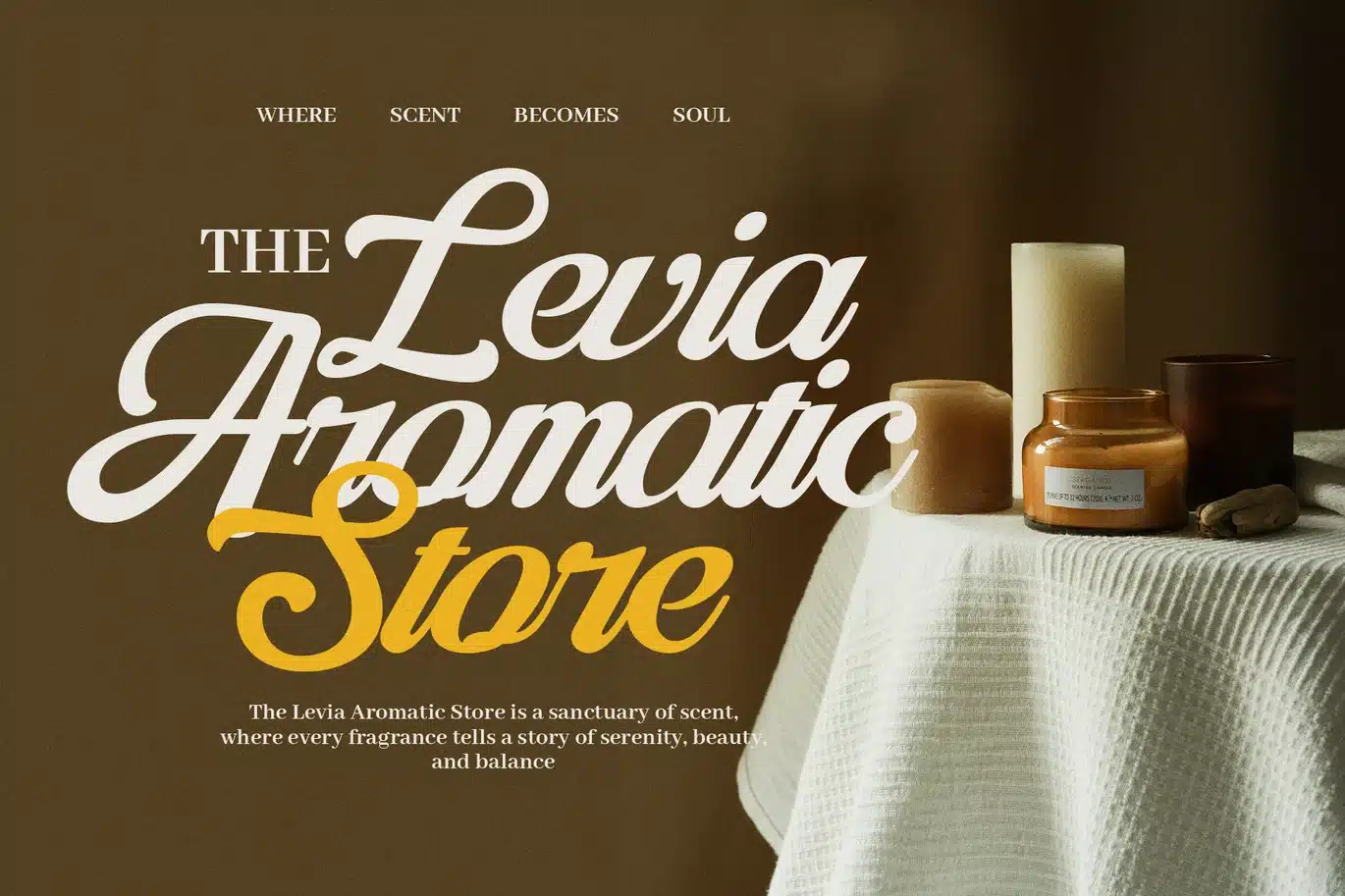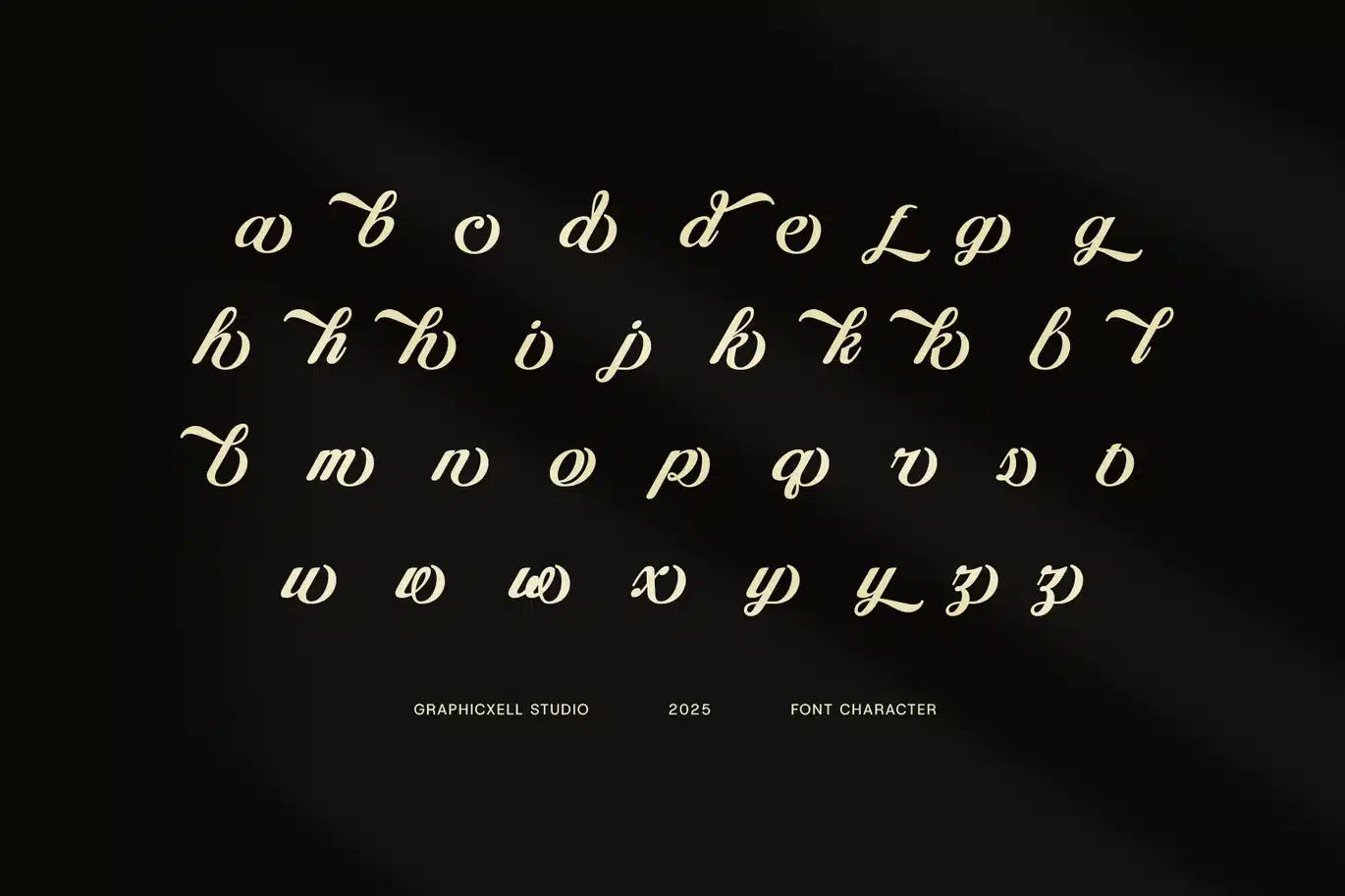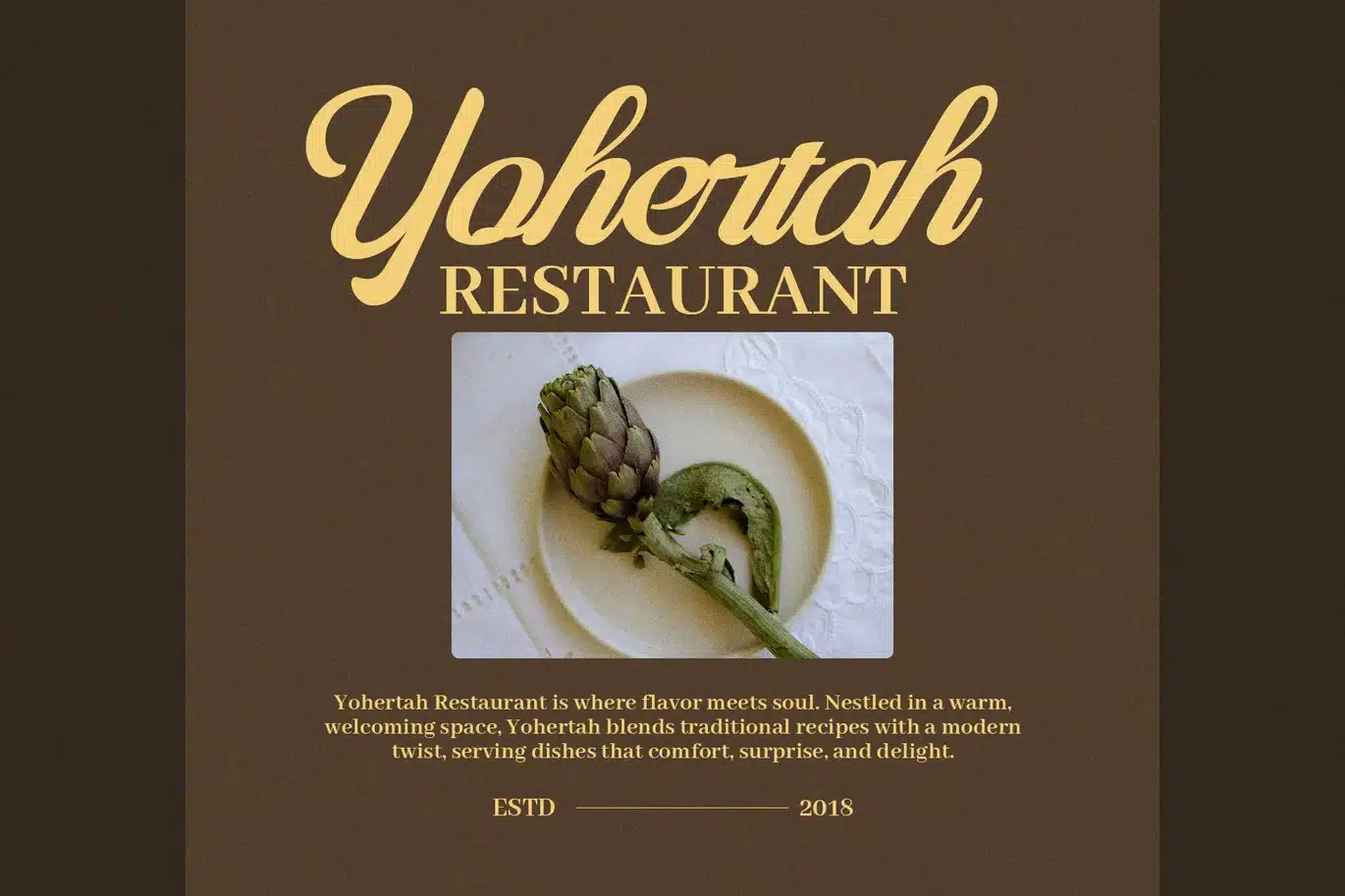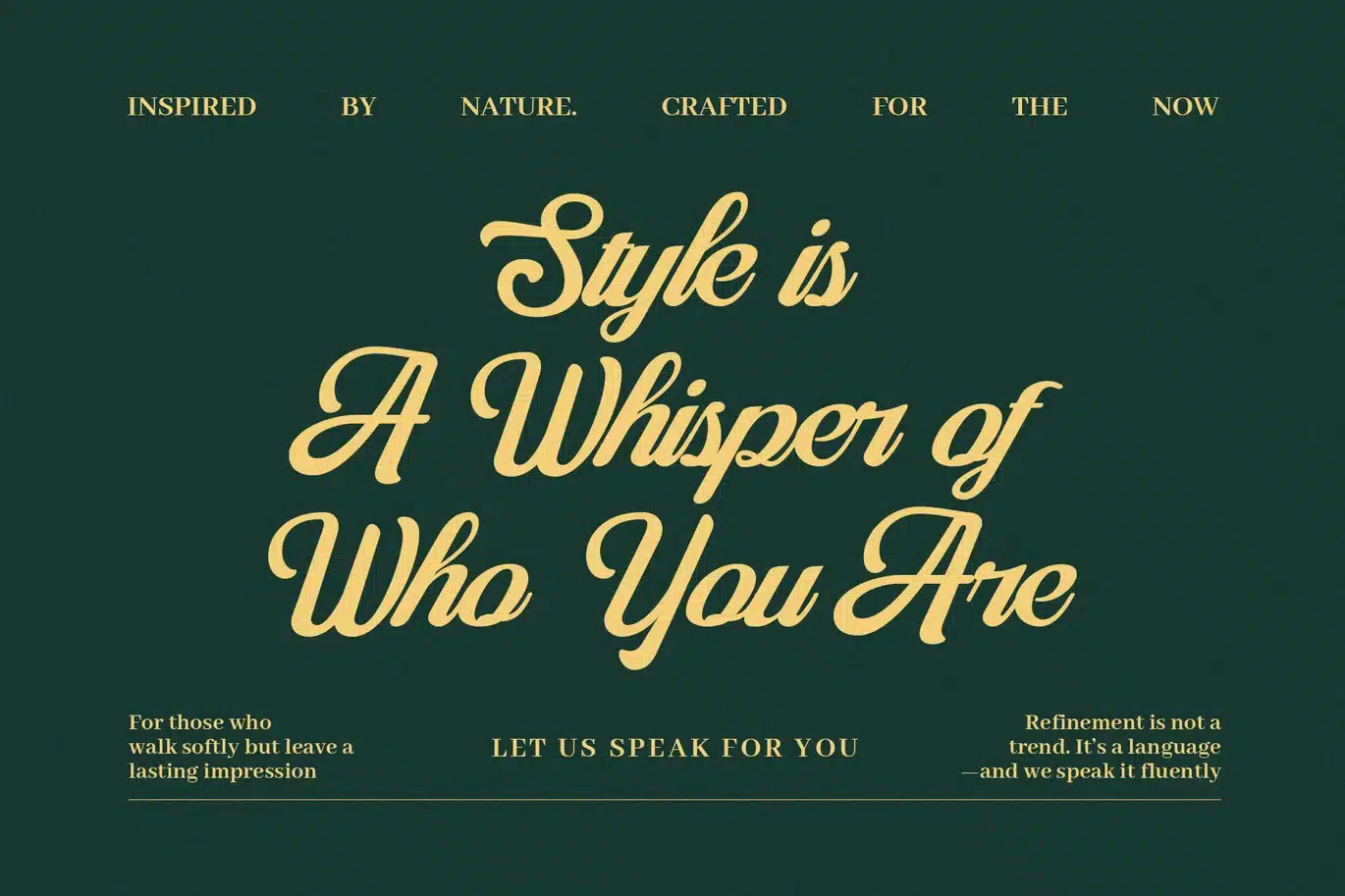
Ambriana – Elegant Modern Script Font
Ambriana is a stylish modern script font made for elegance and charm. It has smooth curves and graceful ligatures that give a natural flow. Moreover, this font brings warmth and personality to branding, wedding invites, social posts, and product packaging. Because it blends modern style with classic script, Ambriana suits both playful and formal projects.
With clear letter shapes and balanced spacing, Ambriana remains easy to read. Also, the swashes add flair without seeming overdone. Whether used for headlines or short text blocks, Ambriana delivers a refined and polished look. Plus, its delicate strokes make your design feel hand-lettered and real.
Key features include:
Uppercase, lowercase, numerals, punctuation, and extras
OpenType features: ligatures, stylistic alternates, swashes
Multilingual support with accents and extended characters
Why choose Ambriana?
Modern script style that adds elegant personality
Versatile use in weddings, branding, web, and print
Flowing design with smooth ligatures and swashes
Extra styling options for unique and custom designs
Furthermore, Ambriana keeps a clean and refined feel even at small sizes. It’s perfect for quotes, nameplates, greeting cards, and more. Yet, it still shines big in headlines and logo designs. And because it supports many languages, your projects look right anywhere in the world. Thus, whether for a small brand, online store, or event promo, Ambriana adds a charming, handcrafted touch.
In summary, Ambriana is a beautiful, modern script font that blends elegance with ease of use. It offers great features and design flexibility. Ultimately, this font brings a heartfelt and elegant style to all your creative work.